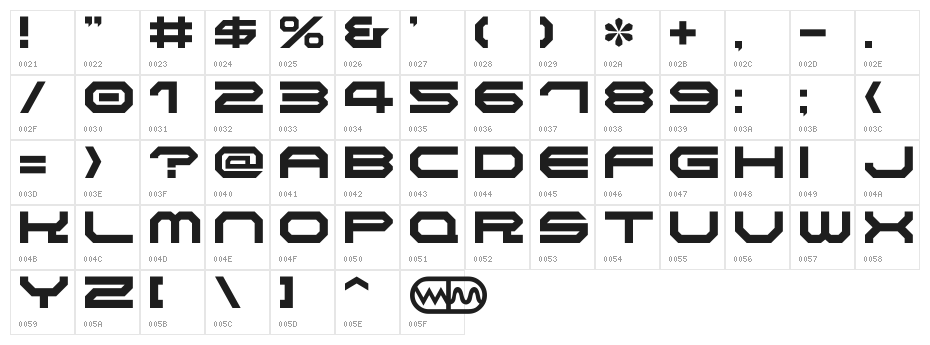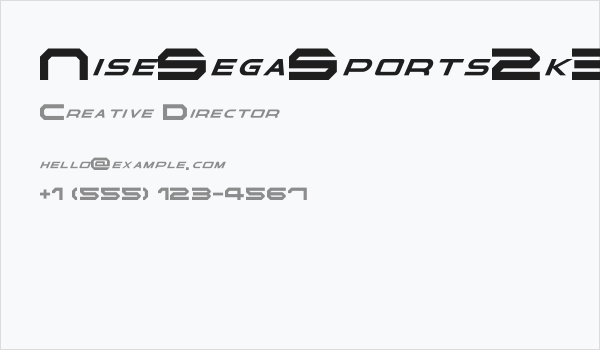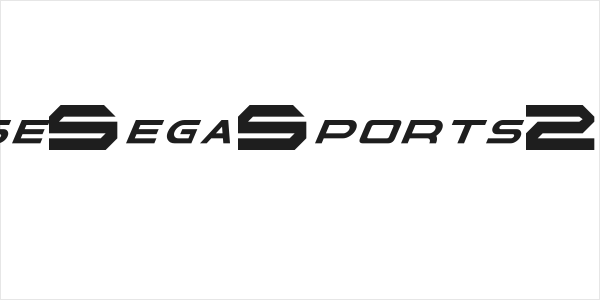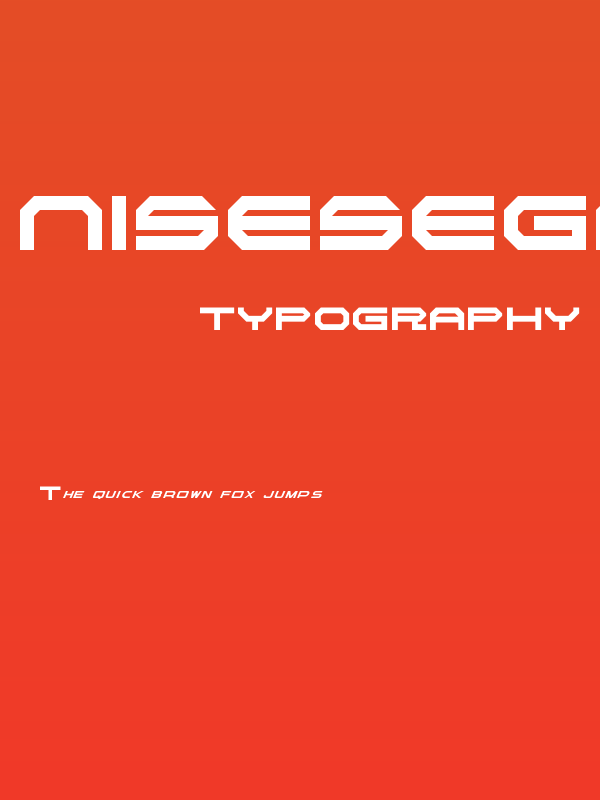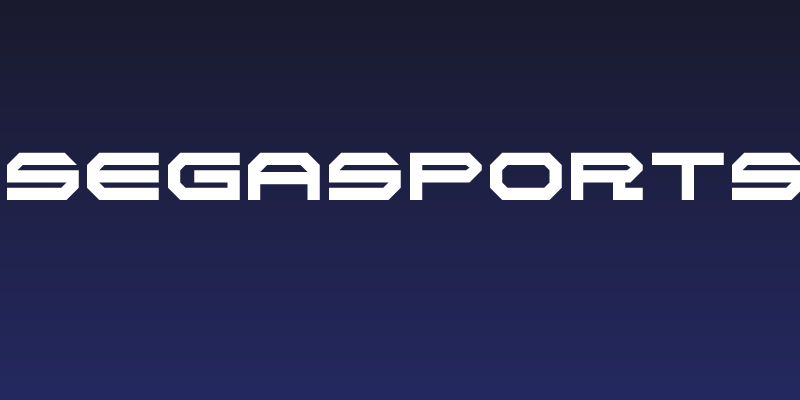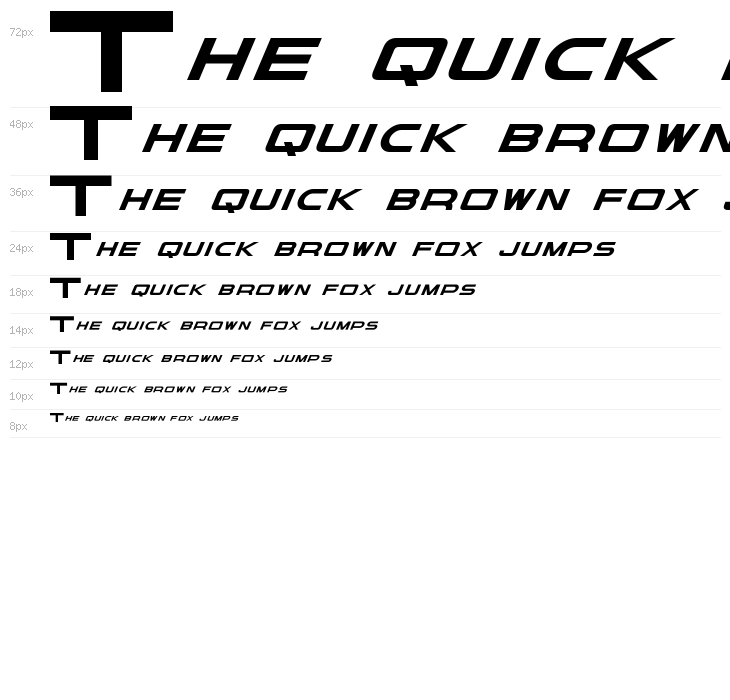
NiseSegaSports2k3 Font
NiseSegaSports2k3 Description
This font features a bold, geometric design with a futuristic and sporty aesthetic. The uppercase letters are characterized by sharp angles and a blocky structure, giving them a strong, impactful presence. The lowercase letters maintain a similar style, ensuring consistency across the typeface. Numbers and special characters are designed to match the boldness and angularity of the alphabet, making them suitable for dynamic and energetic designs. The font's style is reminiscent of sports branding, with a modern twist that makes it suitable for contemporary projects.
| Proposed Projects | Ideal for sports branding, video game titles, futuristic designs, and dynamic posters. |